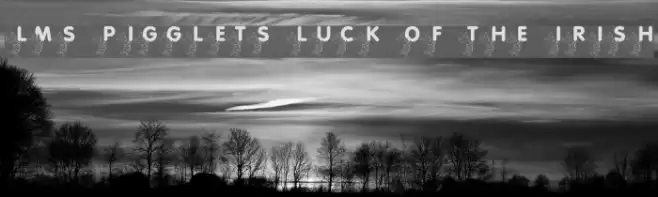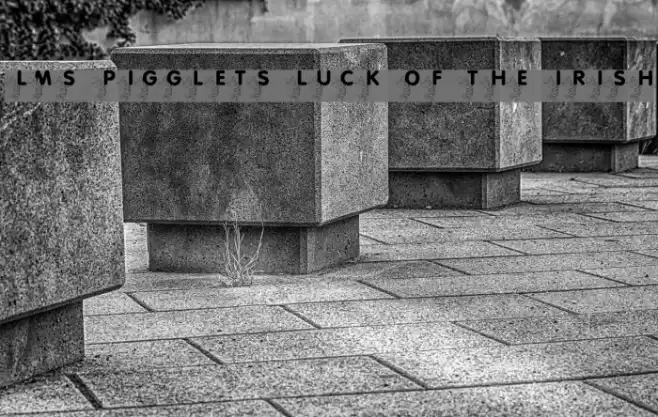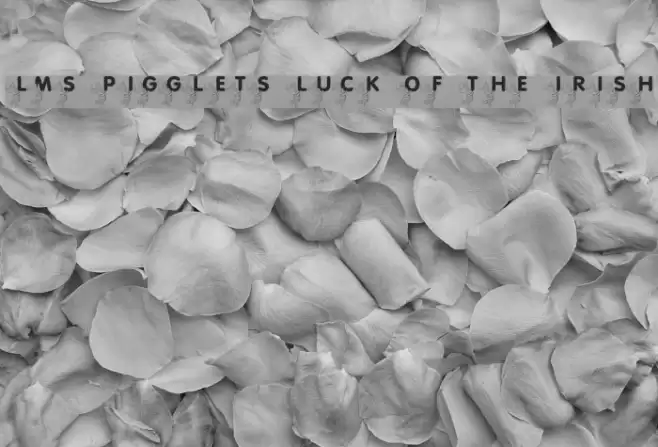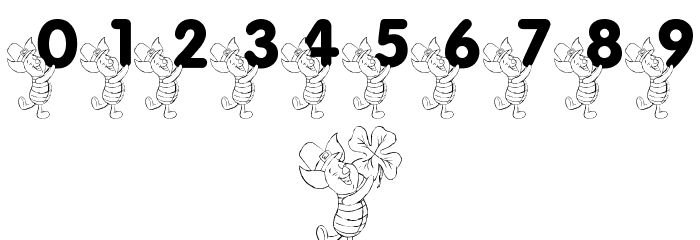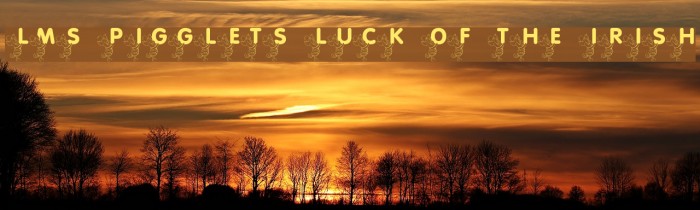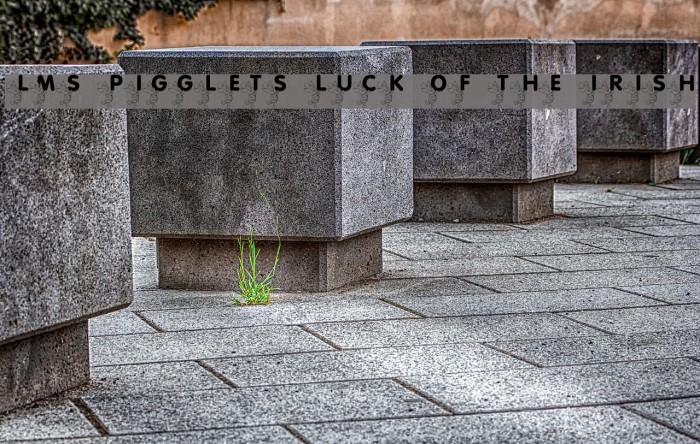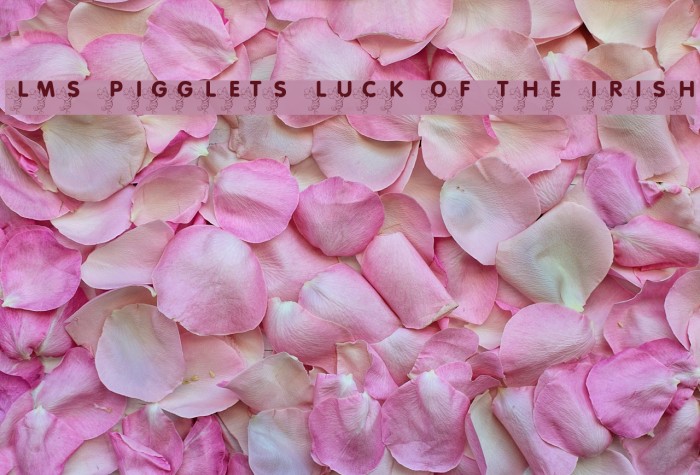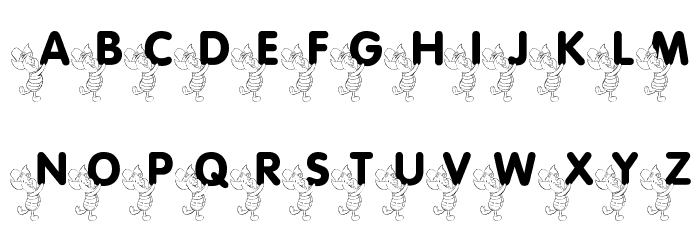
LMS Pigglet's Luck Of The Irish Font
LMS Pigglet's Luck Of The Irish Description
This playful and whimsical font features bold, rounded characters that are accompanied by a charming cartoon piglet illustration. The letters are evenly spaced and maintain a consistent weight, creating a harmonious and balanced appearance. The font exudes a sense of fun and lightheartedness, making it ideal for projects that aim to convey joy and creativity. The piglet illustrations add a unique decorative element, enhancing the font's appeal for themed designs.
A playful, bold font with cartoon piglet illustrations, perfect for fun and creative projects from Uncategorized fonts.
- Proposed Projects: Ideal for children's books, playful invitations, themed party decorations, and any project that requires a touch of whimsy and charm.
- Overall Style: Playful, Whimsical
- Use Case: Headlines, Logos, Decorative elements